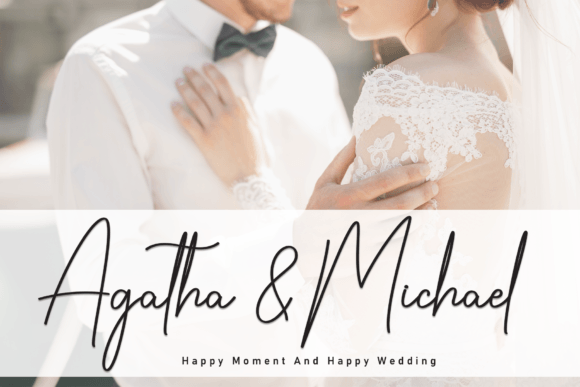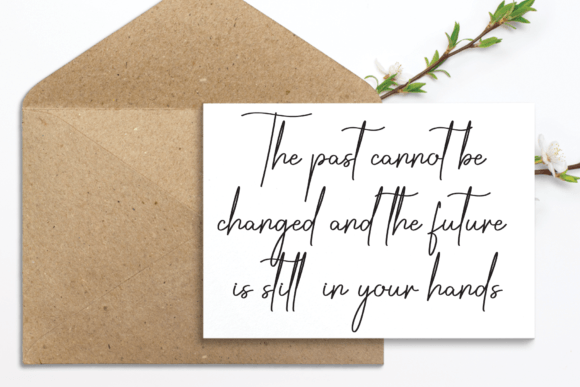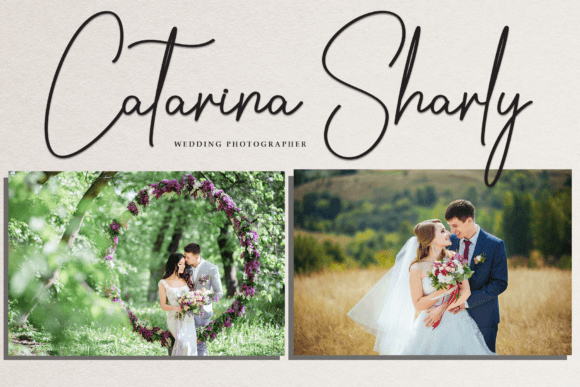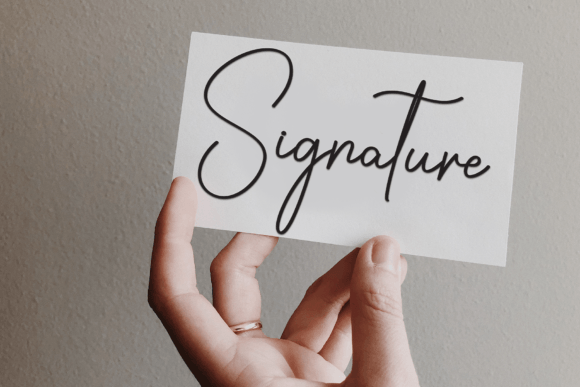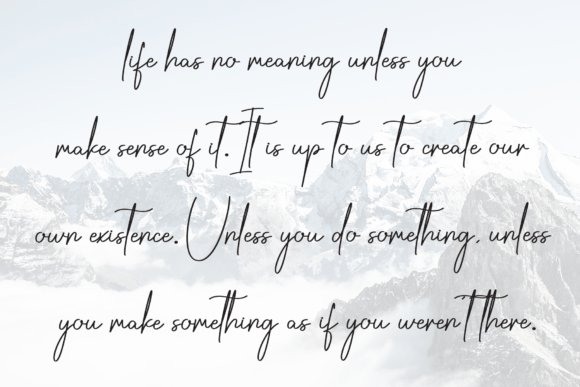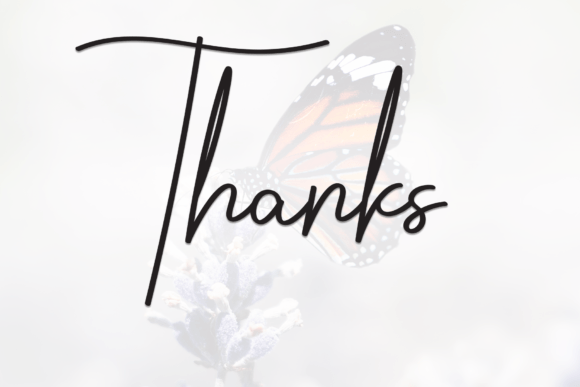
Introducing Butterfly Font: A Lovely and Timeless Handwritten Delight
Are you a designer or crafter looking for a font that can add a touch of elegance and whimsy to your creations? Look no further than the Butterfly Font! This beautiful, handwritten font is perfect for creating eye-catching logos, branding, and quotes that will make your design come alive.
What Makes Butterfly Font So Special?
Butterfly Font is a lovely and timeless handwritten font that boasts a unique and beautiful touch. Every letter has been carefully crafted to ensure that it stands out from the crowd, making it the perfect choice for designers and crafters who want to add a personal touch to their work.
One of the key features that sets Butterfly Font apart is its elegant and flowing script. The font’s handwritten style gives it a warm and inviting feel, making it perfect for use in a variety of design projects, from logos and branding to quotes and social media graphics.
The Benefits of Using Butterfly Font
So why should you choose Butterfly Font for your next design project? Here are just a few benefits of using this beautiful font:
- Elegant and Whimsical: Butterfly Font has a unique and beautiful touch that adds an elegant and whimsical feel to any design project.
- Perfect for Logos and Branding: The font’s elegant script and flowing style make it perfect for creating eye-catching logos and branding materials.
- Versatile: Butterfly Font can be used in a variety of design projects, from social media graphics to quotes and posters.
- Easy to Read: Despite its elegant and flowing style, Butterfly Font is easy to read, making it perfect for use in designs where text needs to be clear and legible.
How to Use Butterfly Font in Your Design Projects
Using Butterfly Font in your design projects is easy! Here are a few tips to get you started:
- Pair it with Other Fonts: Butterfly Font pairs well with other fonts, so don’t be afraid to experiment with different combinations to find the perfect look for your design.
- Use it for Headings and Titles: The font’s elegant script and flowing style make it perfect for use in headings and titles, where you want to make a bold statement.
- Add a Personal Touch: Butterfly Font is perfect for adding a personal touch to your design projects, whether you’re creating a logo, branding materials, or social media graphics.
Design Inspiration with Butterfly Font
Still looking for inspiration on how to use Butterfly Font in your design projects? Here are a few ideas to get you started:
- Create a Beautiful Logo: Use Butterfly Font to create a stunning logo for your business or brand.
- Make a Statement with Quotes: Use the font to create eye-catching quotes and posters that will grab attention.
- Elevate Your Branding: Use Butterfly Font to add a touch of elegance and whimsy to your branding materials, such as business cards and brochures.
In conclusion, Butterfly Font is a lovely and timeless handwritten font that is perfect for designers and crafters looking to add a touch of elegance and whimsy to their design projects. With its elegant script, flowing style, and unique and beautiful touch, this font is sure to make your design come alive!